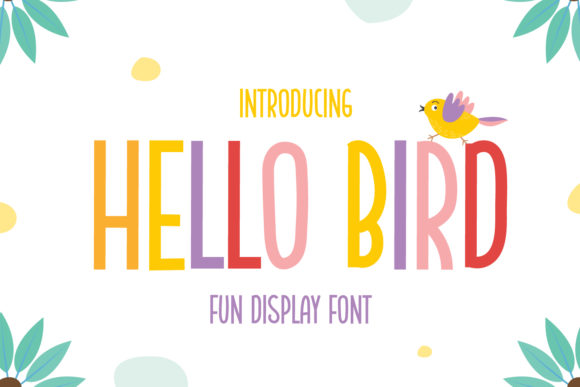
Hey there, fellow font enthusiasts! Welcome to the realm of Hello Bird Font, the quirky and fun Sans Serif font that will bring life to your creative world. Picture this: a font so charming, it feels like a warm hug on a cold day. Its casual and down-to-earth vibe makes it a joy to read, adding a touch of whimsy to your designs.
Dive into the world of Hello Bird Font, and let your imagination soar. Its versatility is like an open canvas, inviting you to explore a myriad of possibilities. Create captivating quotes that leap off the screen, design T-shirts that speak volumes, or craft eye-catching websites that leave a lasting impression. Whether you're a seasoned designer or just starting out, Hello Bird Font is your trusty companion, ready to elevate your projects with its effortless style.
Step into the realm of branding and create logos that resonate with your audience. This font seems to dance across your designs, adding a playful touch to your company's identity. Unleash your creativity in crafting invitations that are as unique as the moments they celebrate. With Hello Bird Font, every invitation becomes a work of art, carrying your heartfelt messages with a smile.
Explore the world of children's designs, where Hello Bird Font becomes a cheerful companion. Its friendly curves and playful spirit bring stories to life, making each page a delightful adventure. Engage your young readers with blog posts that pop with personality, or create stunning logos that capture their imagination. Let Hello Bird Font add a touch of magic to your designs, turning the ordinary into the extraordinary.